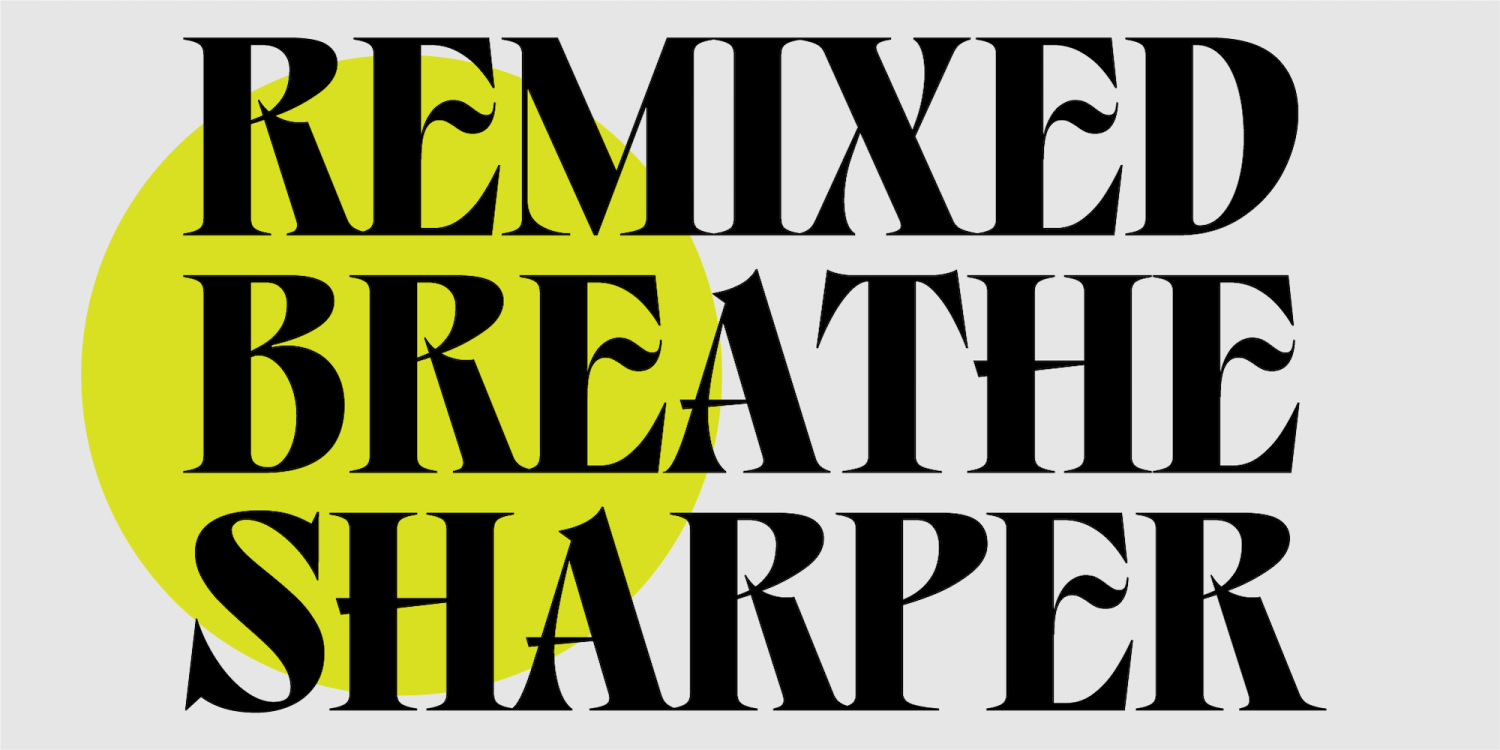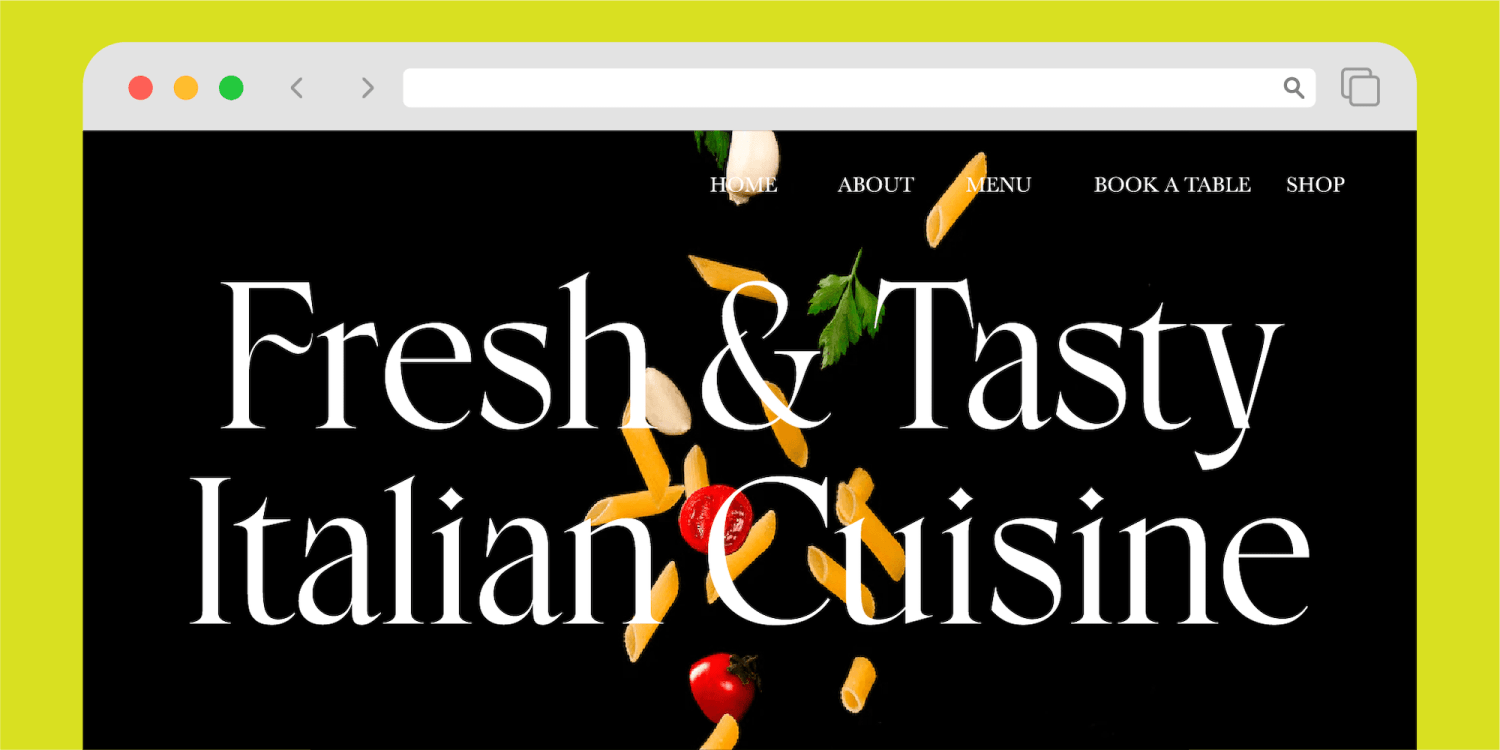
About Belma
Introducing Belma, designed with a stylish serif that exudes elegance, modernity, and minimalism. Belma are crafted to elevate your design and bring a touch of sophistication to your creations. Belma is perfect for display, poster, logo, and any design…